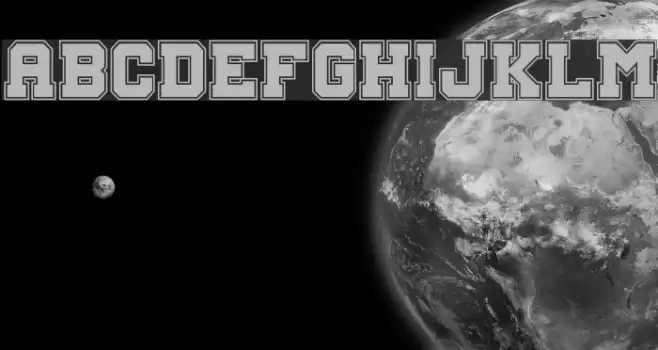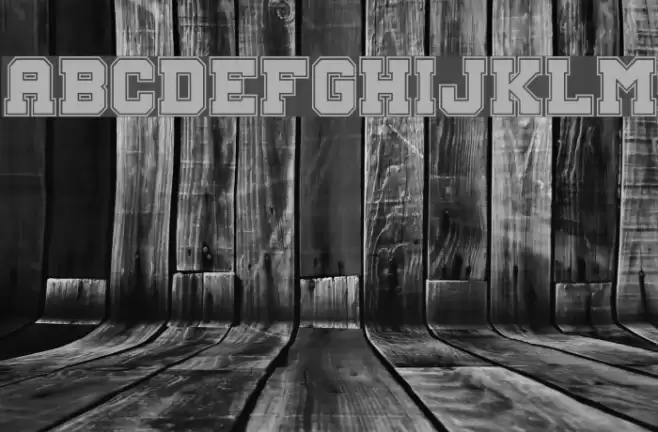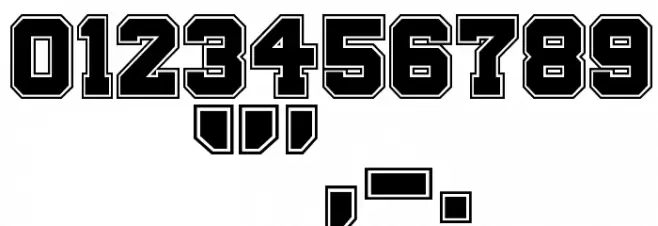
Big Campus Font
Big Campus Description
This font features a bold, collegiate style with a strong, blocky appearance. Each character is outlined, giving it a three-dimensional effect that enhances its visibility and impact. The uppercase letters are prominent and commanding, suitable for creating a sense of authority and tradition. The numbers and special characters maintain the same bold and outlined style, ensuring consistency across all uses. This font is ideal for projects that require a classic, academic, or sports-related theme, such as university branding, sports team logos, or event posters. Its structured and robust design makes it perfect for headlines and titles where a strong presence is needed.
A bold, collegiate-style font with outlined, blocky characters from Old fashioned fonts.
- Proposed Projects: University branding, sports team logos, event posters, and headlines.
- Overall Style: Classic